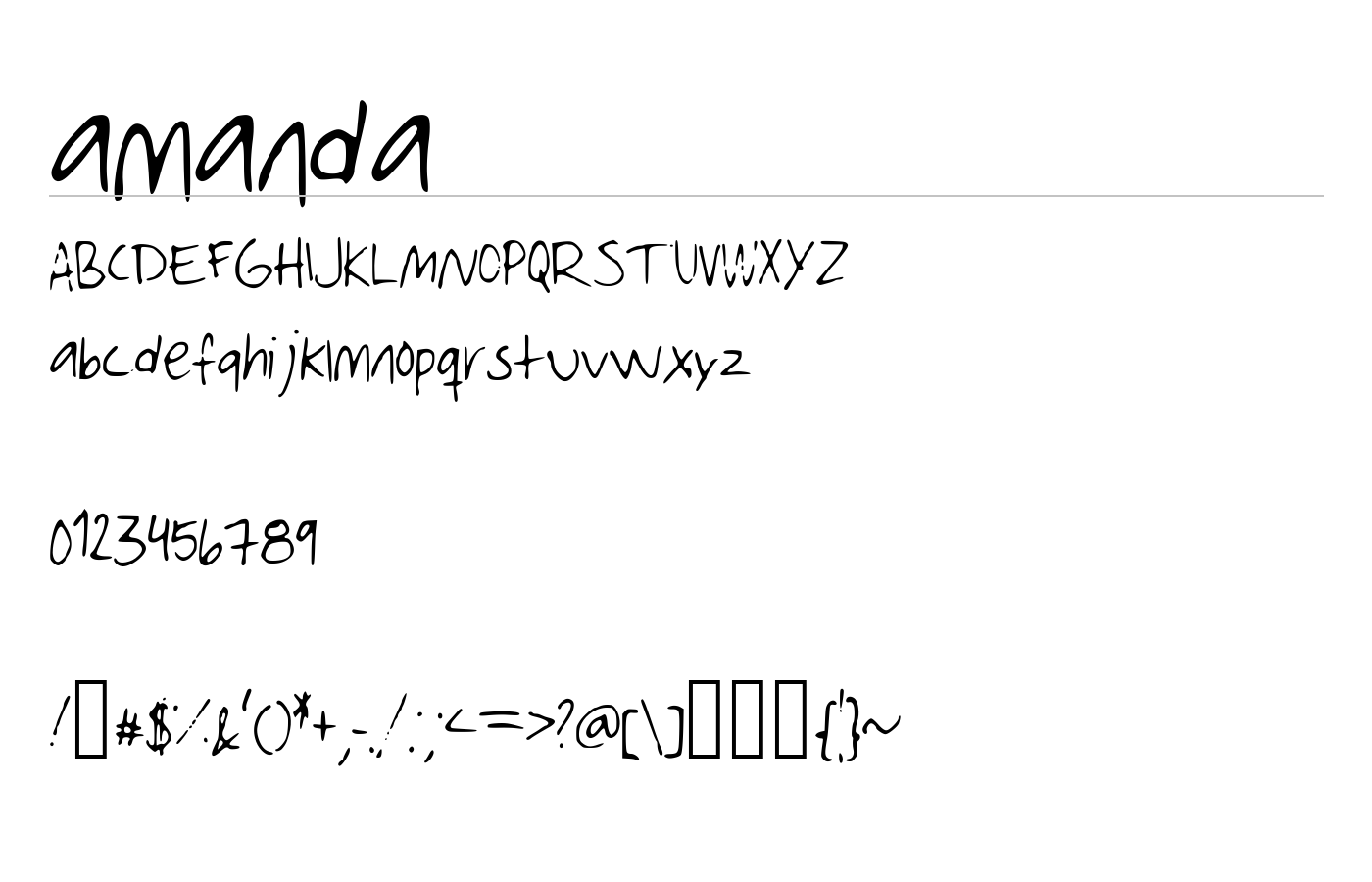
Amanda is a playful and informal handwritten font with a light, airy feel and a mix of casual, slightly irregular letterforms. Its quirky style and narrow, tall characters make it perfect for designs that want to convey friendliness and creativity, such as personal branding, greeting cards, or creative headlines. This font works best when aiming for a fun, approachable vibe that feels personal and unique.
amanda Font
About amanda Font